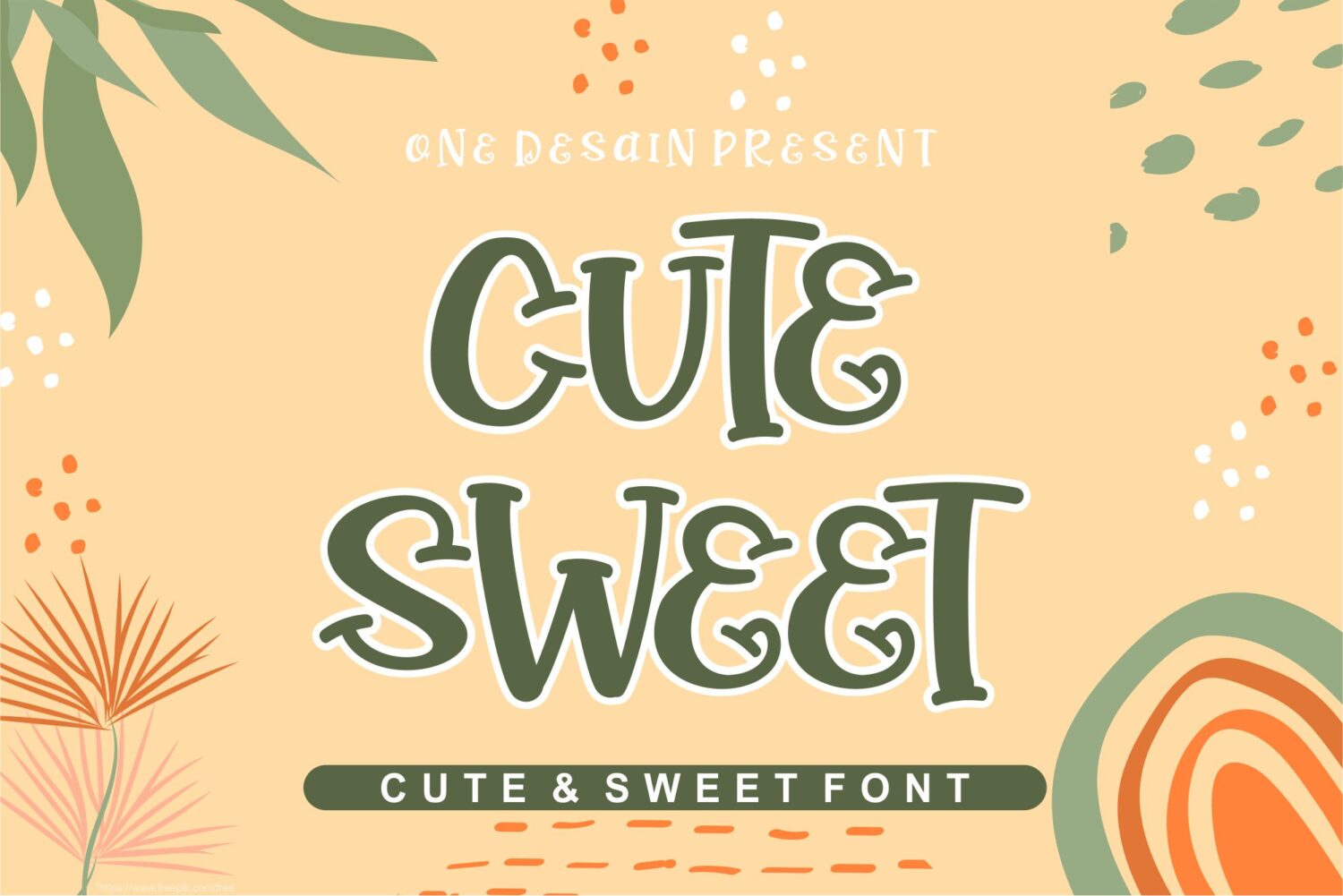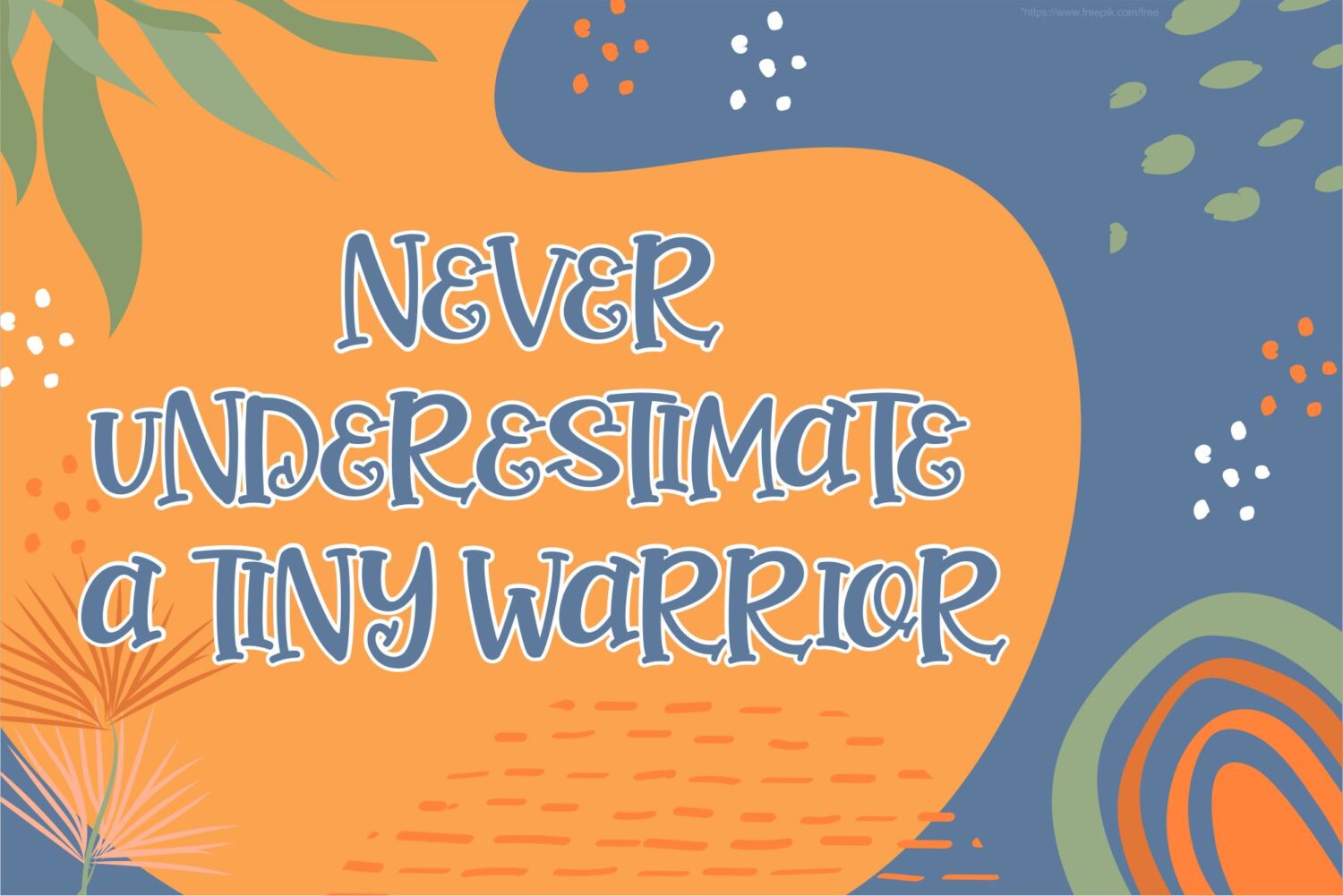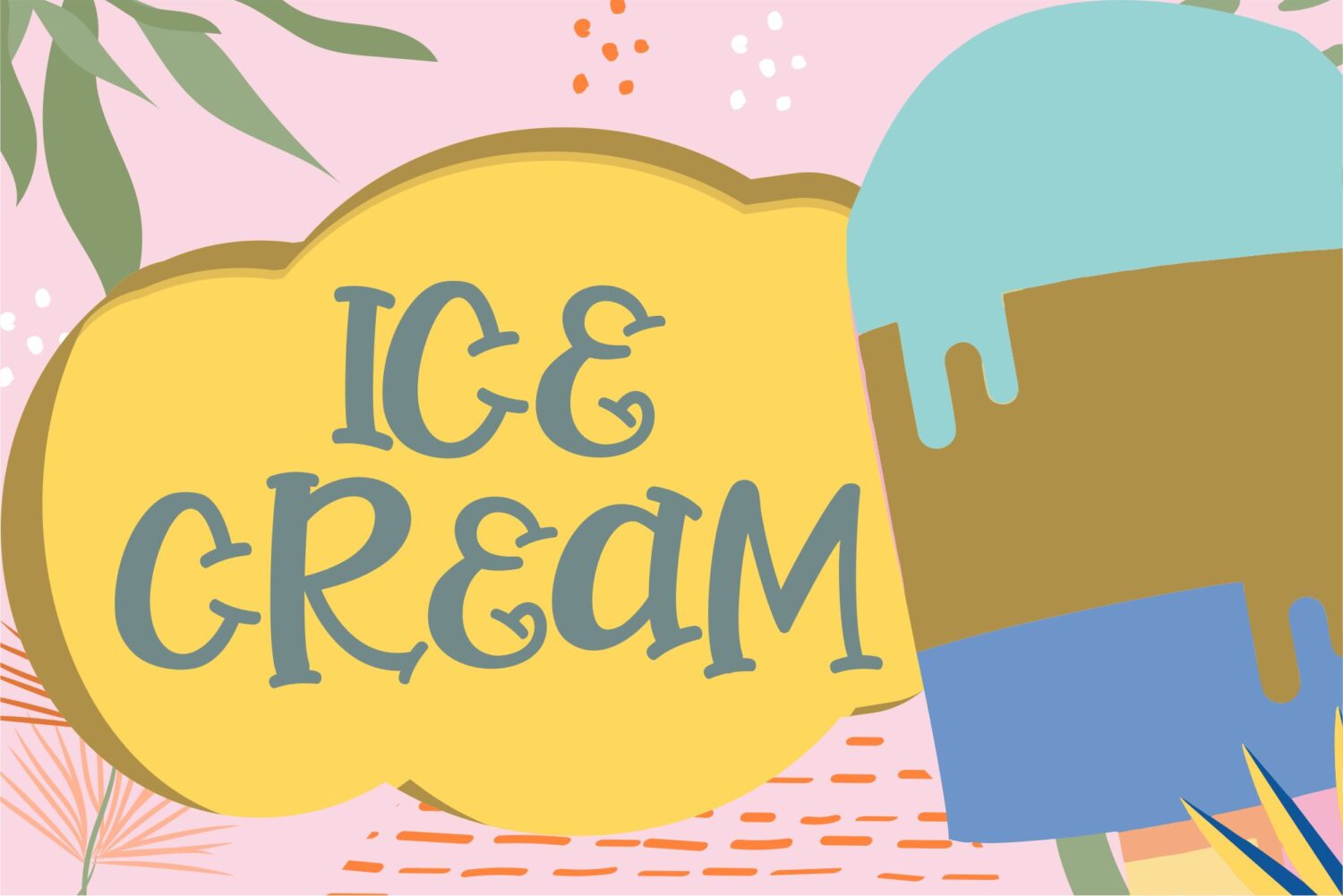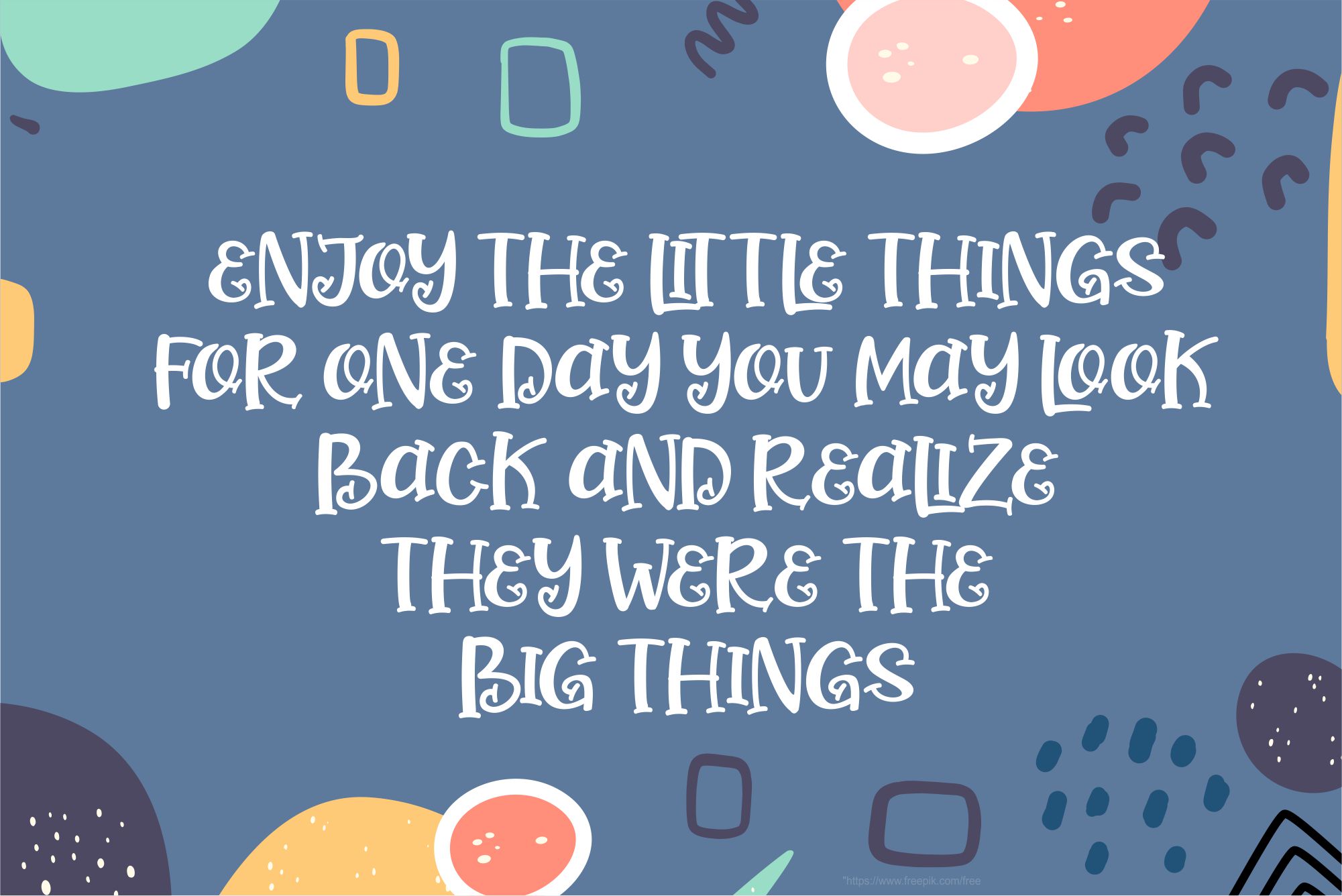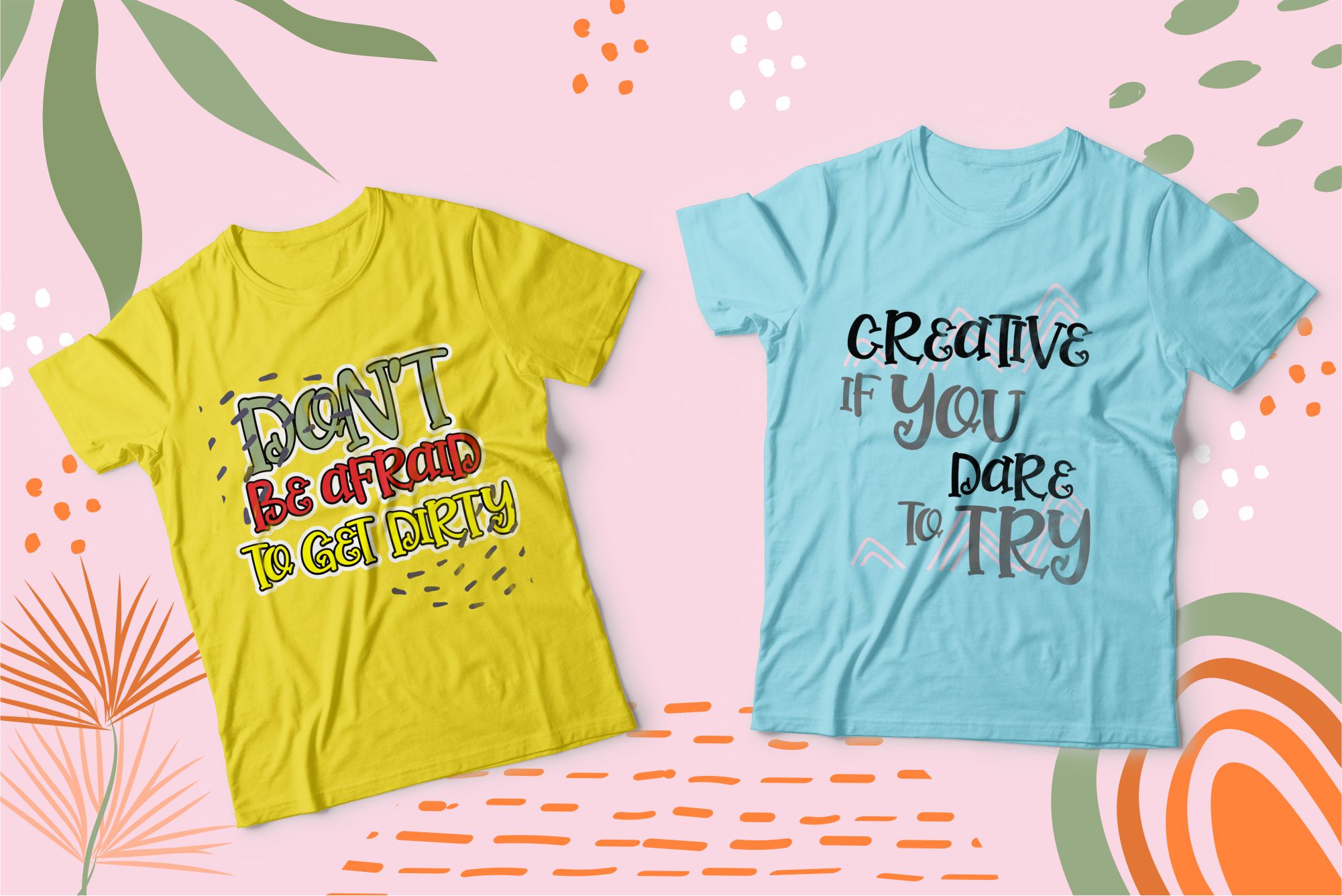
Cute Sweet Free Font
Cute Sweet Free Font at Home embodies fun, quirkiness, and authenticity. This enchanting handwritten font will turn any creative idea into a true standout. This free typeface was designed by a talented Sudarman Mulka. If you like it don’t forget to check out the full version.